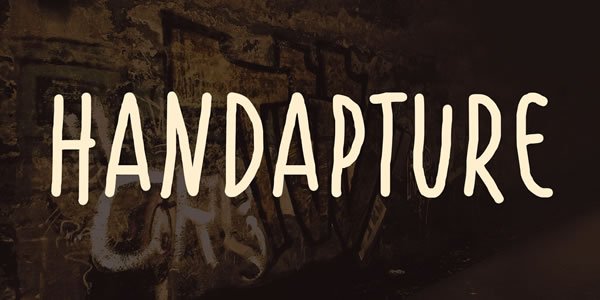
Unleashing the Artistic Spirit with Handapture Font
Have you ever sat down with a blank canvas, a pencil in hand, and let your creativity flow freely? That’s exactly what happened for Situjuh Nazara, the creator of the stunning Handapture Font. As an artist, I’m sure you’ll resonate with the moment when inspiration strikes, and the world comes alive in a burst of color and imagination.
Handapture Font is a beautiful, hand-drawn typeface designed to capture the essence of human emotion and personality. Its purpose is to bring a touch of warmth and character to digital designs, making it a valuable asset for designers looking to add a unique touch to their work. Whether you’re a seasoned pro or a budding artist, Handapture Font is sure to inspire your next creative project.
- Unique Characteristics: Handapture Font features a unique blend of handwritten and brush script styles, making it ideal for creative and artistic designs.
- Font Style: The font is available in both regular and bold styles, allowing for a range of design options.
Handapture Font Review
As a designer, I’ve had the chance to work with the Handapture Font, and I must say it’s an interesting addition to any design project. ✨
- The unique, handwritten style adds a touch of personality to any design. ✨
- The font is highly legible, making it suitable for body text as well as headings. ✨
- The range of weights and styles allows for a high degree of customization. ✨
- The font may not be suitable for formal or professional projects, as it has a more casual feel. ⚠️
- The high stroke weight may not be ideal for small text sizes, as it can become overwhelming. ⚠️
Overall, I think the Handapture Font is a great addition to any designer’s toolkit, but it’s essential to consider the project’s tone and style before using it. With its unique personality and high level of customization, it’s sure to add a touch of creativity to any design project. However, it may not be the best choice for more formal projects.
Tips for Getting the Most Out of Handapture Font
Use Handapture Font for creating whimsical and elegant designs. Pair it with bold colors and intricate illustrations to create a unique and eye-catching look. Experiment with different font sizes and styles to achieve the desired effect.
Handapture Font is ideal for creating invitations, greeting cards, and other paper crafts. It’s also great for designing wedding stationery, menus, and other event materials. The font’s elegant and whimsical style makes it perfect for creating a romantic and vintage-inspired look.